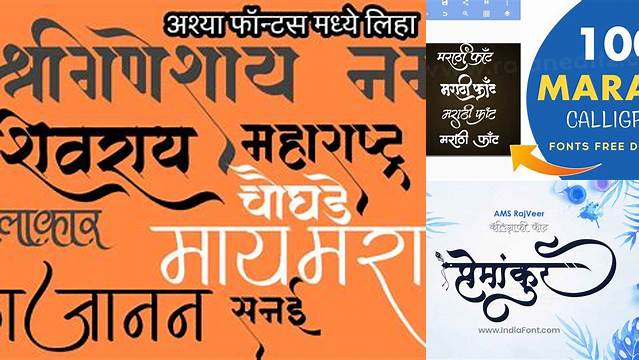
Marathi Fonts For Canva: Free Download Guide
Are you looking to add a touch of Marathi to your Canva designs? You've come to the right place! In this comprehensive guide, we'll delve into the world of Marathi fonts available for free download on Canva. We'll explore the importance of using appropriate fonts, the variety of options available, and how to effectively incorporate them into your projects. Whether you're creating social media graphics, presentations, or marketing materials, choosing the right Marathi font can significantly enhance your message and resonate with your target audience. So, let's dive in and discover the best Marathi fonts for your Canva designs!
Why Use Marathi Fonts in Your Canva Designs?
Guys, let's talk about why using the right font, especially Marathi fonts, is super important in your designs. Think of it this way: your font is like your voice in the design world. It sets the tone, conveys the message, and makes your work stand out. If you're targeting a Marathi-speaking audience, using Marathi fonts is not just a good idea – it's essential! It shows that you care about connecting with them on a deeper level, understanding their culture and language. This creates a sense of trust and makes your message more relatable. Imagine seeing a beautifully designed poster in Marathi, using a font that perfectly captures the spirit of the language – it instantly grabs your attention, right?
But here's the thing: not all fonts are created equal. Some fonts are formal, some are playful, and some are just plain difficult to read. Choosing the right Marathi font can make or break your design. A clear and legible font ensures that your message is easily understood, while a stylish font can add personality and flair. Using Marathi fonts also helps preserve the authenticity of the language and culture. It shows respect for the nuances and subtleties of the script, which is something your audience will definitely appreciate. So, when you're designing for a Marathi-speaking audience, take the time to explore different fonts and find the ones that best represent your message and brand. Trust me, it makes a world of difference!
Exploring Free Marathi Font Options on Canva
Okay, so you're convinced about the importance of using Marathi fonts. Now, let's get into the exciting part – exploring the free options available on Canva! Canva is a treasure trove of design resources, and that includes a decent selection of Marathi fonts that you can use without spending a dime. But, to be frank, the selection isn't as vast as you might find for Latin scripts. However, don't let that discourage you! There are still some fantastic Marathi fonts to choose from, and with a little creativity, you can achieve stunning results.
When you're browsing through Canva's font library, you might not find a specific category labeled "Marathi fonts." Instead, you'll need to search using keywords like "Devanagari" (the script used for Marathi), "Marathi," or even specific font names if you have any in mind. Experimenting with different search terms is key to uncovering hidden gems. You can also explore fonts that support multiple languages, including Marathi. These fonts often have a broader range of styles and weights, giving you more flexibility in your designs. Don't be afraid to try out different combinations and see what works best for your project. Remember, the goal is to find a font that is both readable and visually appealing, and that complements the overall design. Plus, keep an eye out for updates to Canva's font library, as they frequently add new options. You never know when you might discover your new favorite Marathi font! We'll also explore how to upload your own fonts to Canva, which opens up a whole new world of possibilities.
Step-by-Step Guide to Uploading Marathi Fonts to Canva
Okay, let's break down the process of uploading Marathi fonts to Canva into a step-by-step guide. This is super useful if you have a particular font in mind that's not already available in Canva's library. Remember, this feature is exclusive to Canva Pro users, so you'll need a paid account to follow along.
- Get Canva Pro: If you haven't already, upgrade to Canva Pro. You can usually find a free trial to test it out before committing.
- Gather Your Fonts: Make sure you have the Marathi font files you want to upload. These files are usually in OTF (OpenType Font) or TTF (TrueType Font) format. Also, double-check the font license to ensure you're allowed to use it for your intended purpose.
- Access the Brand Kit: Once you're logged into your Canva Pro account, navigate to your Brand Kit. You can usually find this in the left-hand menu under "Brand."
- Find the Font Upload Section: In the Brand Kit, you'll see sections for your brand logos, colors, and fonts. Look for the "Brand Fonts" section.
- Upload Your Font: Click the "Upload a font" button. A file explorer window will pop up, allowing you to select the Marathi font file from your computer.
- Confirm Your License: Canva will ask you to confirm that you have the rights to use the font. Make sure you've read and understood the font license before proceeding.
Canva is a fantastic tool for designers of all levels, and its ability to support Marathi fonts makes it even more versatile. Whether you're creating social media graphics, presentations, or marketing materials, you can now easily incorporate Marathi text into your designs. And with the option to upload your own fonts, you have endless possibilities at your fingertips. So, go ahead and explore different fonts, experiment with different styles, and create designs that truly stand out. By following the tips and best practices outlined in this guide, you can elevate your designs and make a lasting impression on your audience. Happy designing!